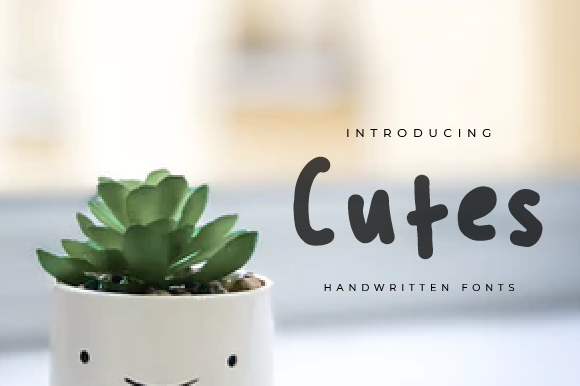
Cutes Font: The Sweet and Quirky Handwritten Font for Creative Minds
Are you a designer, crafter, or DIY enthusiast looking for a font that can add a touch of personality to your creative projects? Look no further than Cutes Font, a sweet and quirky handwritten font that’s sure to make your designs stand out. In this article, we’ll explore the unique features of Cutes Font, its benefits, and how you can use it to bring your creative ideas to life.
What is Cutes Font?
Cutes Font is a beautiful, handwritten font that’s designed to embody uniqueness and youth. Its sweet and quirky style makes it perfect for a wide range of creative projects, from greeting cards and invitations to branding and advertising materials. With its playful and charming vibe, Cutes Font is sure to capture the attention of your audience and leave a lasting impression.
Unique Features of Cutes Font
So, what sets Cutes Font apart from other fonts? Here are some of its unique features:
- Handwritten style: Cutes Font has a beautiful, handwritten style that’s full of character and personality.
- Quirky and playful: This font has a quirky and playful vibe that’s sure to add a touch of fun to your designs.
- Unique letterforms: Each letterform in Cutes Font is unique and carefully crafted to create a sense of whimsy and charm.
- Youthful and modern: Cutes Font has a youthful and modern feel that’s perfect for brands and designers who want to appeal to a younger audience.
Benefits of Using Cutes Font
- Adds personality to your designs: Cutes Font is a great way to add personality and character to your designs, making them stand out from the crowd.
- Perfect for creative projects: This font is perfect for a wide range of creative projects, from crafting and DIY to branding and advertising.
- Easy to read: Despite its quirky style, Cutes Font is easy to read, making it perfect for use in body text and headlines.
- Versatile: Cutes Font can be used in a variety of contexts, from digital designs to print materials.
How to Use Cutes Font in Your Designs
- Greeting cards and invitations: Use Cutes Font to create beautiful, one-of-a-kind greeting cards and invitations.
- Branding and advertising: Add a touch of personality to your branding and advertising materials with Cutes Font.
- Crafting and DIY projects: Use Cutes Font to add a personal touch to your crafting and DIY projects, such as scrapbooking and journaling.
- Digital designs: Use Cutes Font in your digital designs, such as social media graphics and blog posts.
| Font Name | Cutes Font |
| Author | Ciriative |